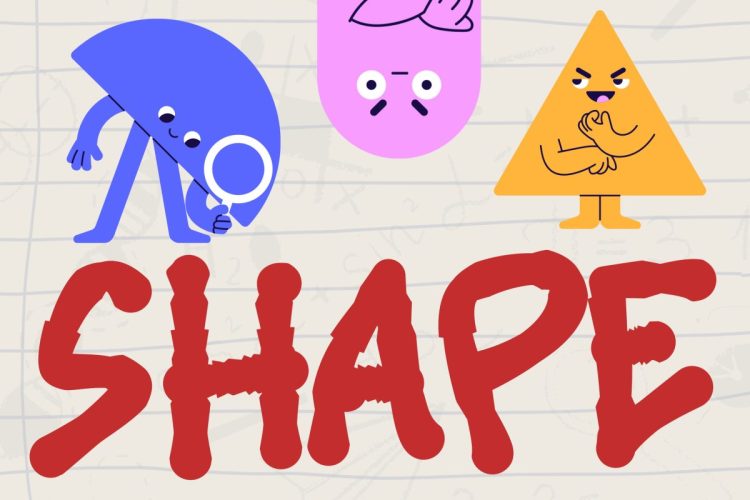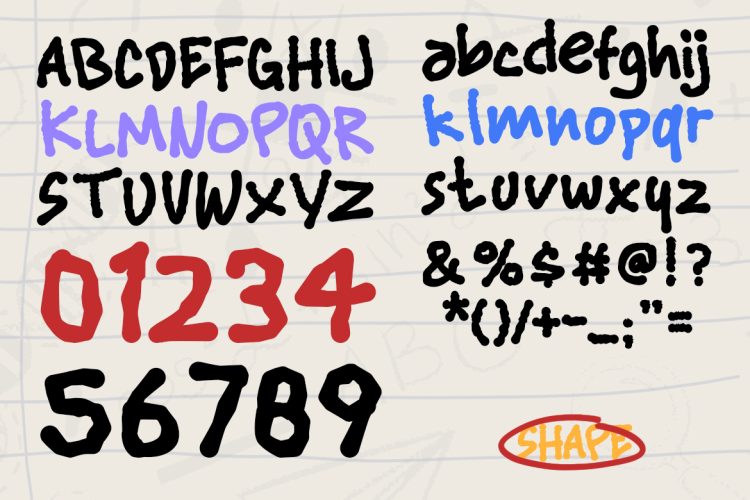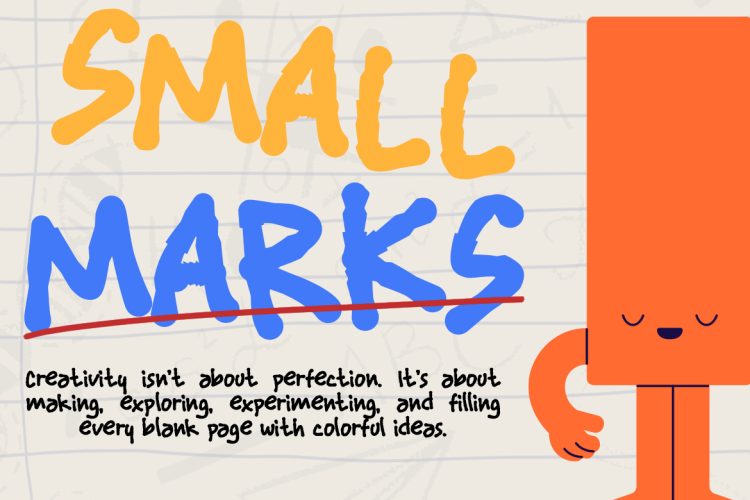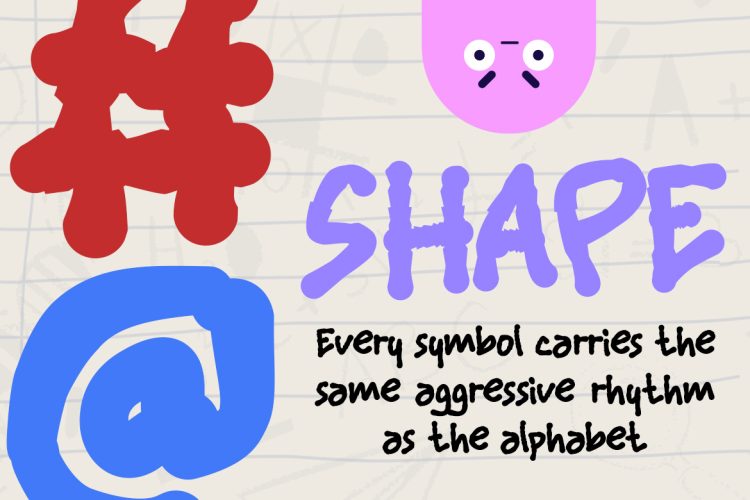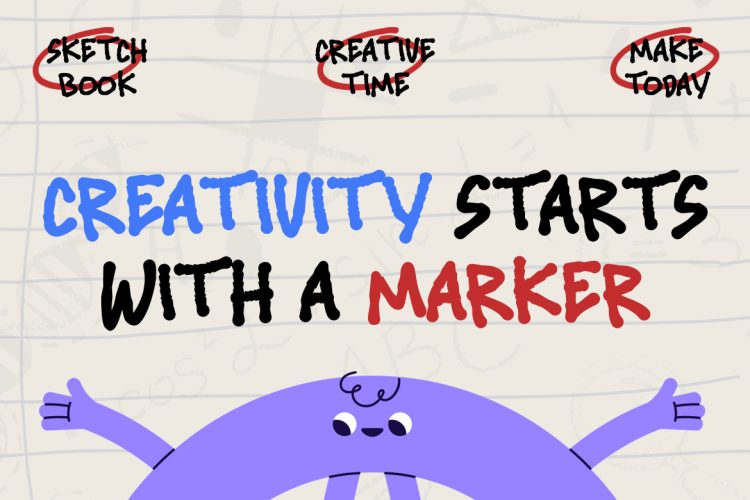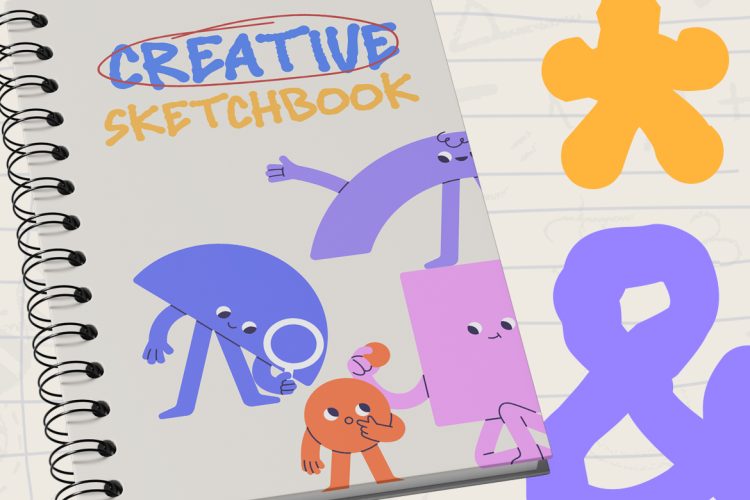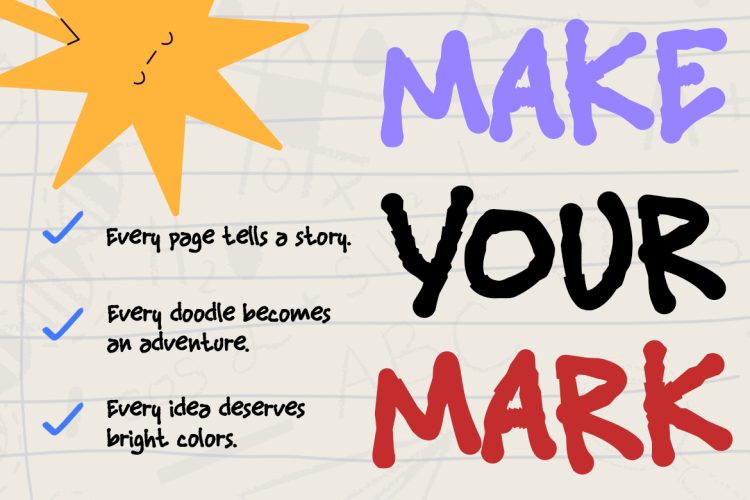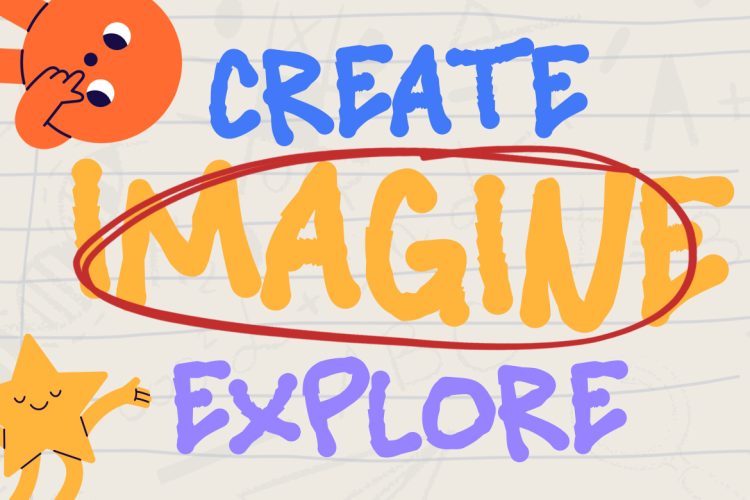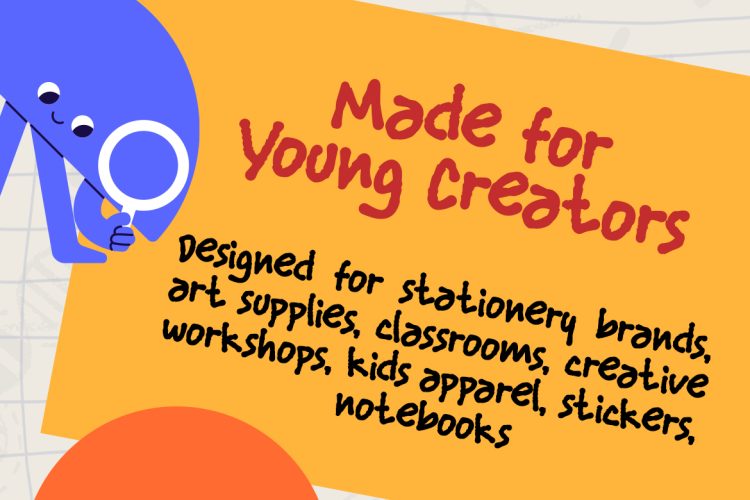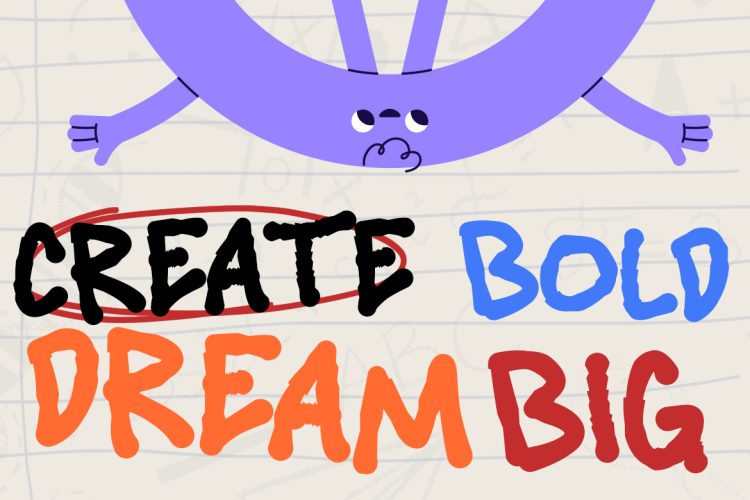
Shape โ Bold Marker Display Font for Creative Kids Designs
Kids Font Shape is a playful marker display font that transforms ordinary text into bold, expressive artwork. Inspired by hand-drawn doodles and colorful creativity, it features energetic brush strokes, rounded shapes, and natural imperfections. Moreover, every character feels lively and approachable, while maintaining excellent readability. As a result, your headlines instantly become more engaging and memorable.
Why You’ll Love It
Additionally, Shape is built for projects that need a cheerful and creative personality. Its handcrafted marker style delivers an authentic look that feels fun without losing clarity. Whether you’re designing children’s books, educational materials, toy packaging, or playful branding, this font adapts effortlessly. Furthermore, it pairs beautifully with colorful illustrations and modern layouts. Besides that, its bold letterforms help important messages stand out quickly. Therefore, every design feels more energetic, friendly, and eye-catching.
Kids Font Shape Perfect For
Kids branding, school projects, educational resources, storybooks, toy packaging, stickers, classroom decorations, social media graphics, YouTube thumbnails, posters, event flyers, creative logos, stationery, merchandise, and craft businesses.
Bring Your Ideas to Life